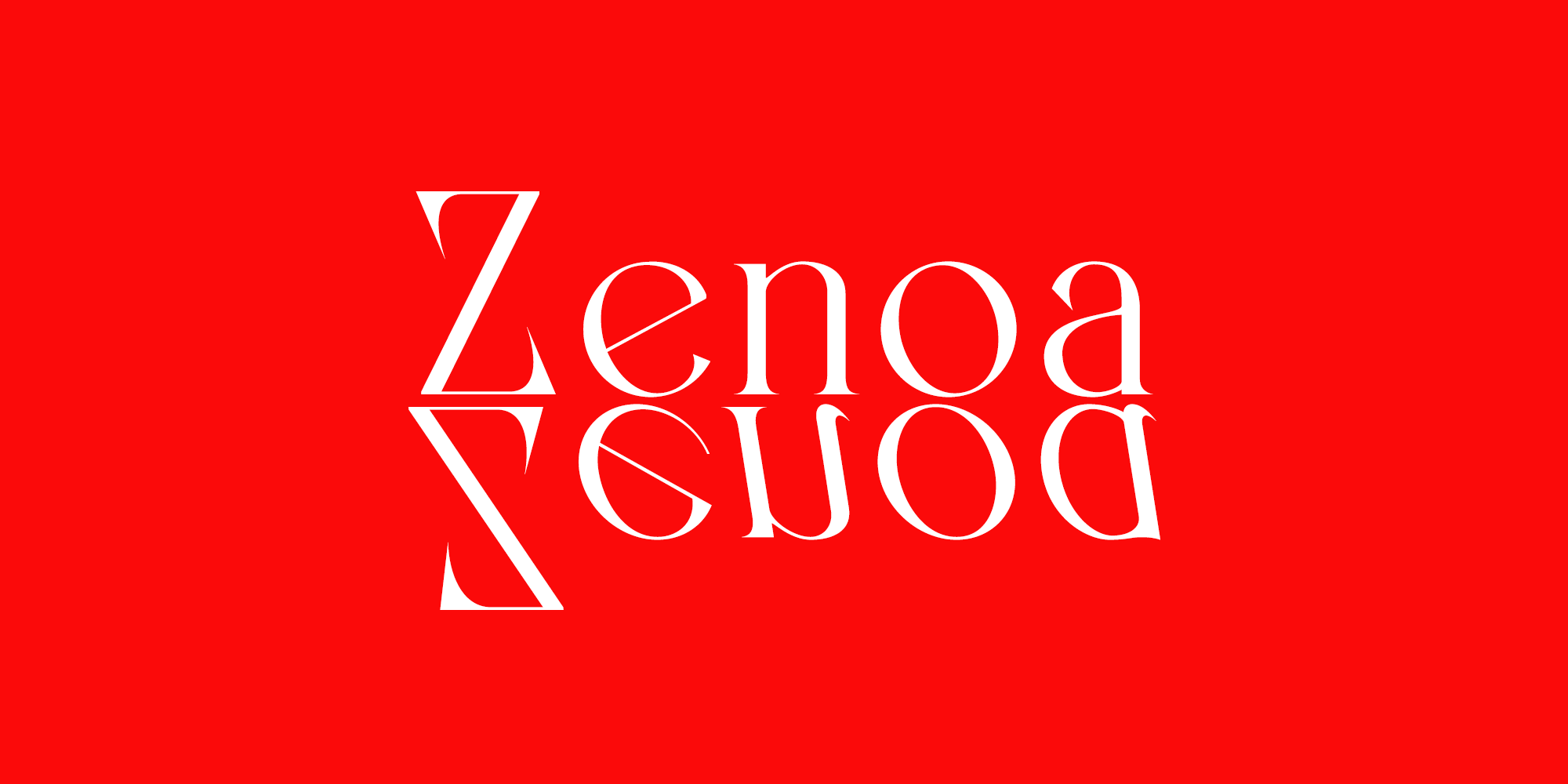
Zenoa Font excels in serene design applications including wellness center branding, meditation app interfaces, spa marketing materials, yoga studio signage, mindfulness publications, organic product packaging, holistic health websites, luxury resort communications, zen garden installations, and contemplative art projects. This tranquil typeface seamlessly combines minimalist aesthetics with calming visual presence, making it an essential tool for designers working on projects that prioritize peace, balance, and harmonious communication.
What makes Zenoa Font particularly exciting is its masterful embodiment of zen philosophy through carefully crafted letterforms that promote visual calm and mental clarity. The font features gentle, flowing curves with perfectly balanced proportions that create a sense of inner peace and mindful presence. Its thoughtful character design incorporates subtle organic elements that reflect natural harmony while maintaining exceptional readability across all applications. The typeface's ability to convey both sophistication and tranquility makes it perfect for brands seeking to establish authentic connections with wellness-conscious audiences. Each letter has been meticulously designed to promote visual breathing space and reading comfort, with special attention to character flow and meditative rhythm.
The Zenoa Font family encompasses harmonious weight variations including Ultra Light, Light, Regular, Medium, and Bold, each maintaining the core peaceful aesthetic while offering distinct levels of visual presence. The family also features elegant italic versions that add graceful movement without disrupting the overall sense of calm. Additional variants may include condensed styles for space-conscious applications and extended versions for expansive headline treatments, all designed to preserve the font's contemplative character and spiritual resonance.
Wellness professionals consistently choose Zenoa Font Free Download for projects requiring authentic spiritual expression and calming visual impact. This remarkable typeface has gained recognition in the wellness community for its ability to enhance mindful communication and create environments conducive to relaxation and personal growth. The font's thoughtful OpenType features include contextual alternatives, graceful ligatures, and specialized meditation symbols that support comprehensive wellness branding and spiritual communication needs.
Whether you're developing holistic health branding, creating meditation applications, designing spa environments, or crafting mindfulness marketing materials, Zenoa Font delivers exceptional results. Its peaceful aesthetic makes it particularly suitable for wellness centers, spiritual organizations, luxury spas, organic brands, and lifestyle companies seeking to communicate authenticity, tranquility, and conscious living through their visual identity.
The font's technical specifications ensure seamless performance across all digital and print applications while maintaining its serene character. It includes comprehensive Unicode support for international wellness markets, making it suitable for global mindfulness brands and multilingual spiritual publications. The careful optimization guarantees consistent rendering across various devices and platforms, preserving the font's calming qualities whether displayed on meditation apps or printed on wellness literature.
Professional designers appreciate Zenoa Font's ability to convey peace and authenticity while maintaining commercial viability and brand effectiveness. Its gentle presence creates immediate emotional connection while remaining highly functional for comprehensive wellness branding systems. The font's meditative nature helps organizations establish trust and credibility with audiences seeking authentic spiritual experiences and meaningful personal transformation.